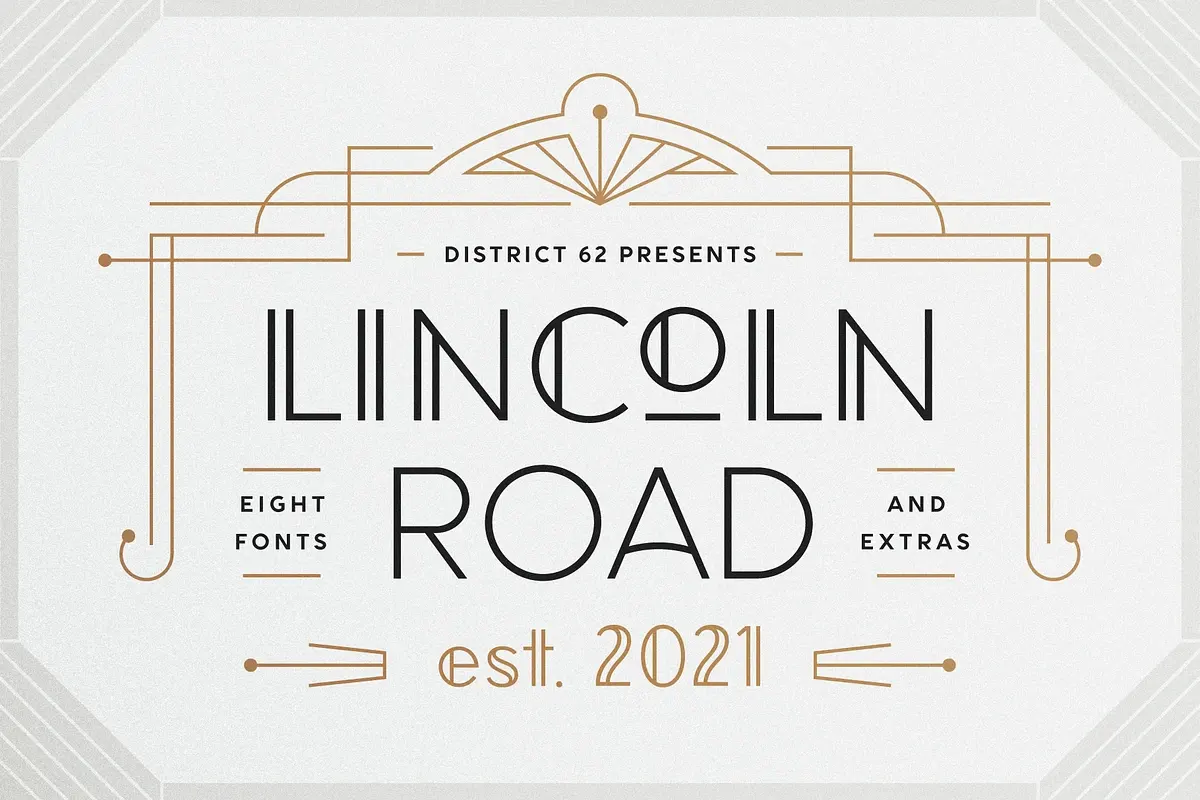
Lincoln Road Font Collection Free Download is a versatile and elegant bundle of typefaces designed to enhance your design projects with a touch of sophistication. Featuring a range of fonts, from clean sans-serif to stylish script and serif options, this collection is perfect for creating logos, branding, invitations, posters, and more. Whether you're working on a professional corporate brand, a creative campaign, or a personal project, Lincoln Road Font Collection Free Download offers a diverse set of fonts that suit every need. Experiment with the collection in personal projects before purchasing a commercial license and elevate your designs with the timeless beauty and flexibility of this premium font collection.